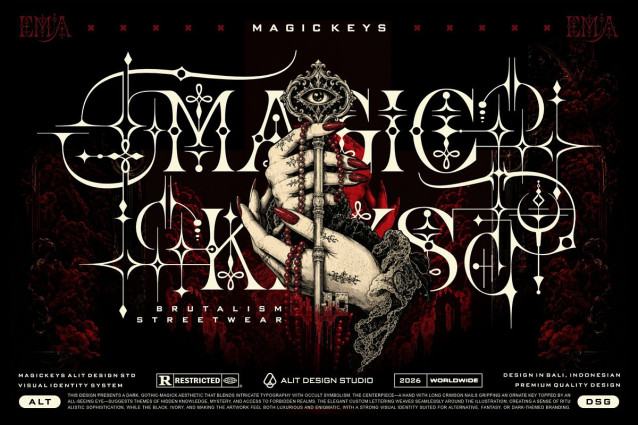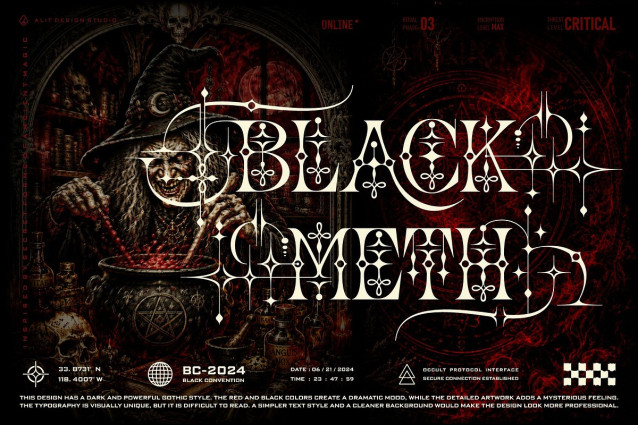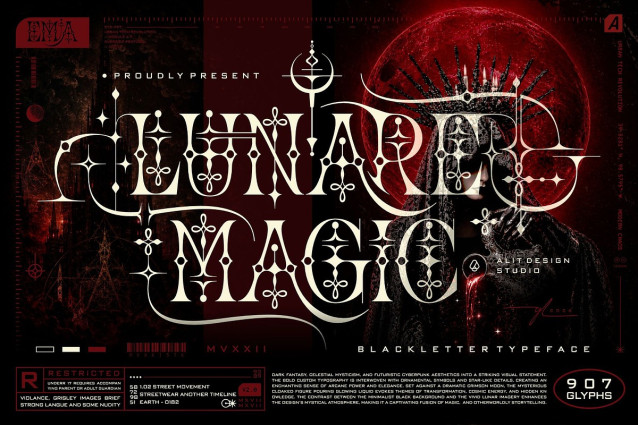
Lunare Magic Font
Lunare Magic Font a striking blackletter typeface designed to captivate and command attention. Masterfully crafted by Alit Design Studio, this font seamlessly blends dark fantasy, celestial mysticism, and gothic aesthetics into a singular visual statement.
Lunare Magic is not just a font; it is a visual identity system tailored for creators inspired by mystery. The bold custom typography is interwoven with intricate ornamental symbols and delicate star-like details, giving your artwork an elegant yet haunting appearance. Whether you are designing for brutalism streetwear, dark horror concepts, occult-themed branding, or striking music merchandise, Lunare Magic provides the perfect atmospheric foundation.